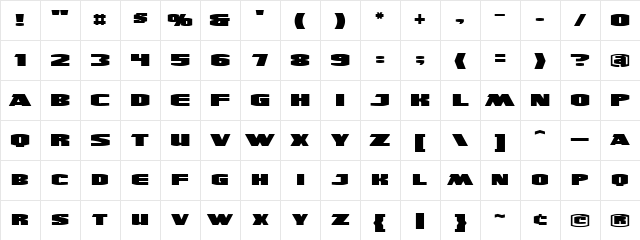
UltraViolent BB Regular
Foundry: Nate Piekos. Blambot.com
Designer: Nate Piekos
Design Context for UltraViolent BB
UltraViolent BB is a composed and adaptable typeface that performs quietly and consistently across a wide range of design contexts.
Who designed the UltraViolent BB Regular font?
This font was published by Nate Piekos. Blambot.com. Check the technical specs section for copyright and designer details.